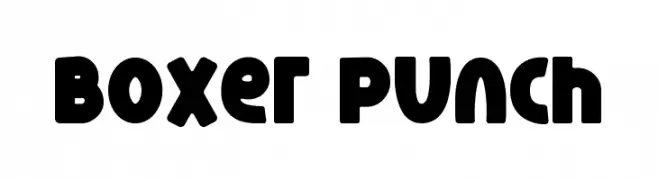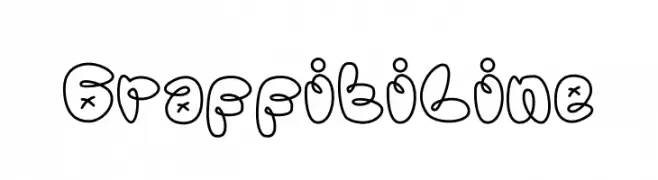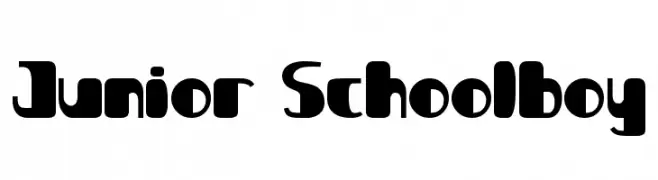
A playful, handwritten script font with bold uppercase and fluid lowercase letters.
A bold, geometric font with vintage-inspired serifs and modern appeal.
A playful, handwritten font with smooth, flowing lines and a casual style.
A bold, playful font with a unique blocky design and creative use of negative space.
A bold, geometric font with a cracked, fragmented design.
A bold, rounded font with a playful and robust style.
A playful, graffiti-inspired font with bold, rounded line art design.
A playful, bold font with rounded, whimsical characters.
A bold, brushstroke-style font with dynamic and artistic flair.
A bold, distressed font with a vintage, handcrafted feel.